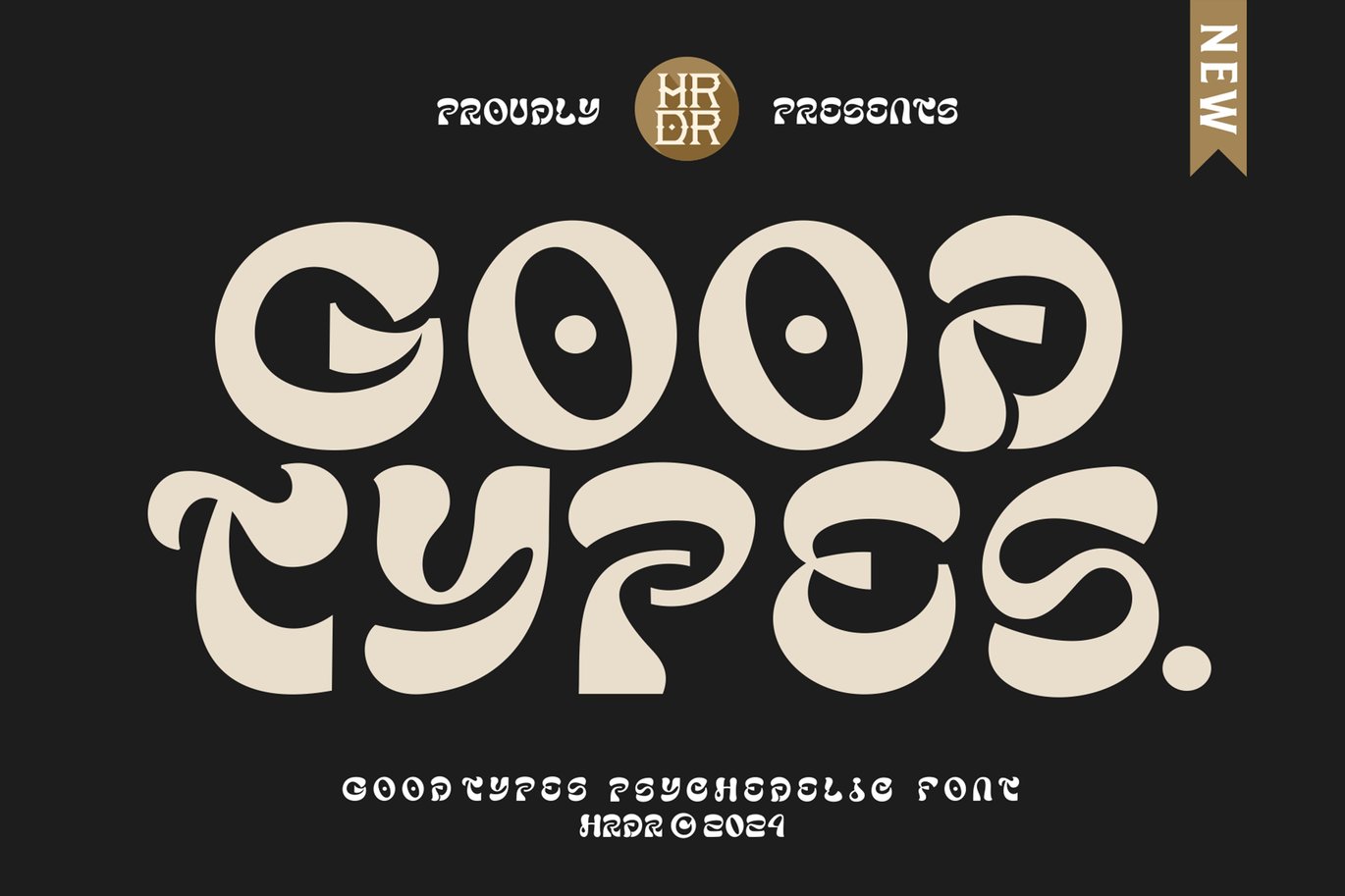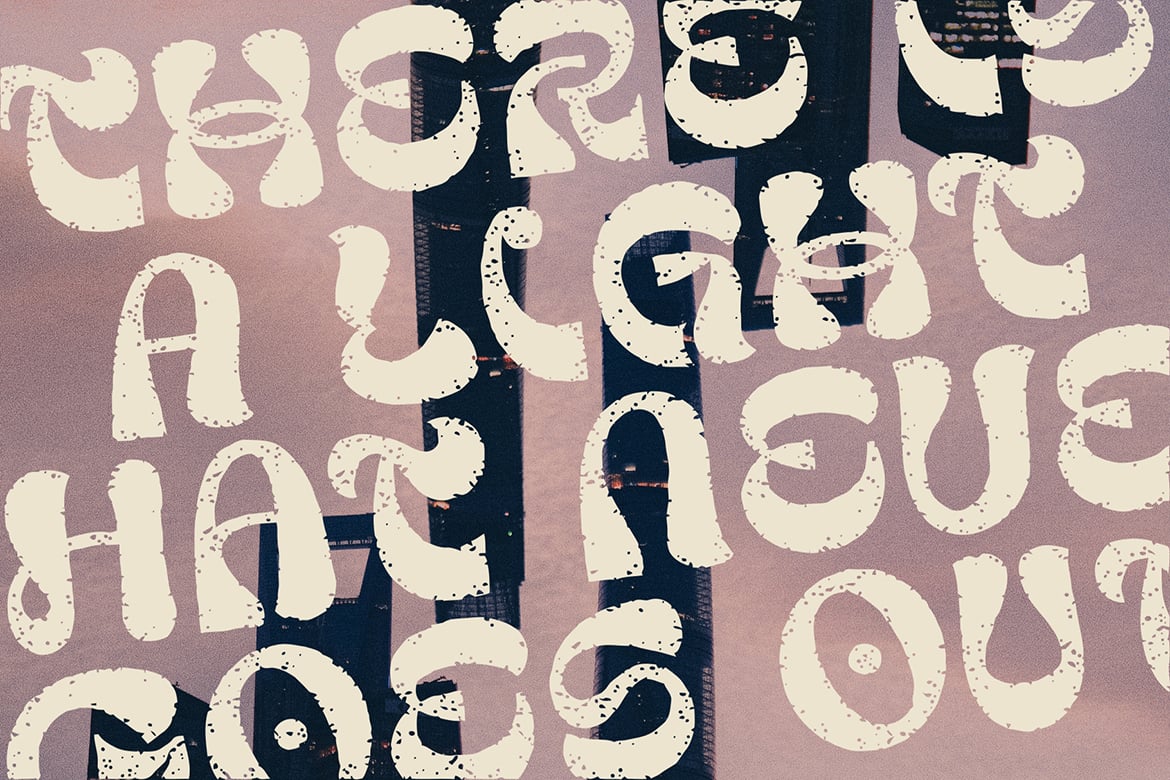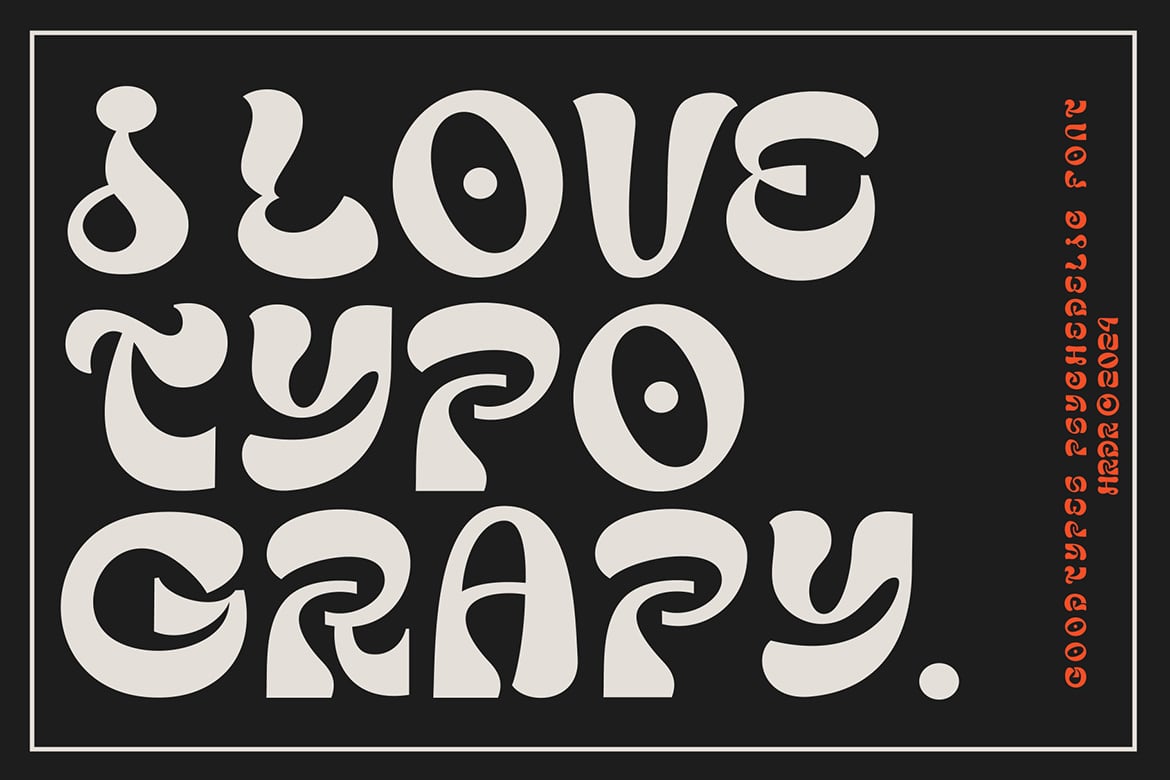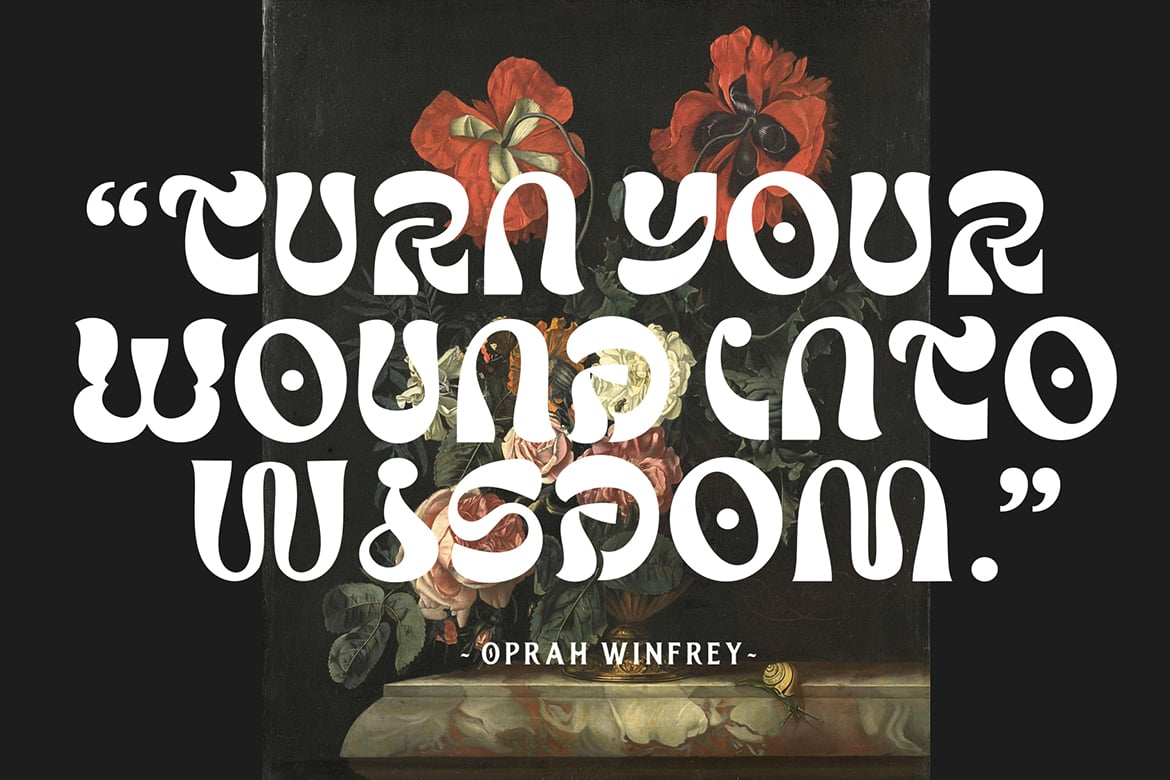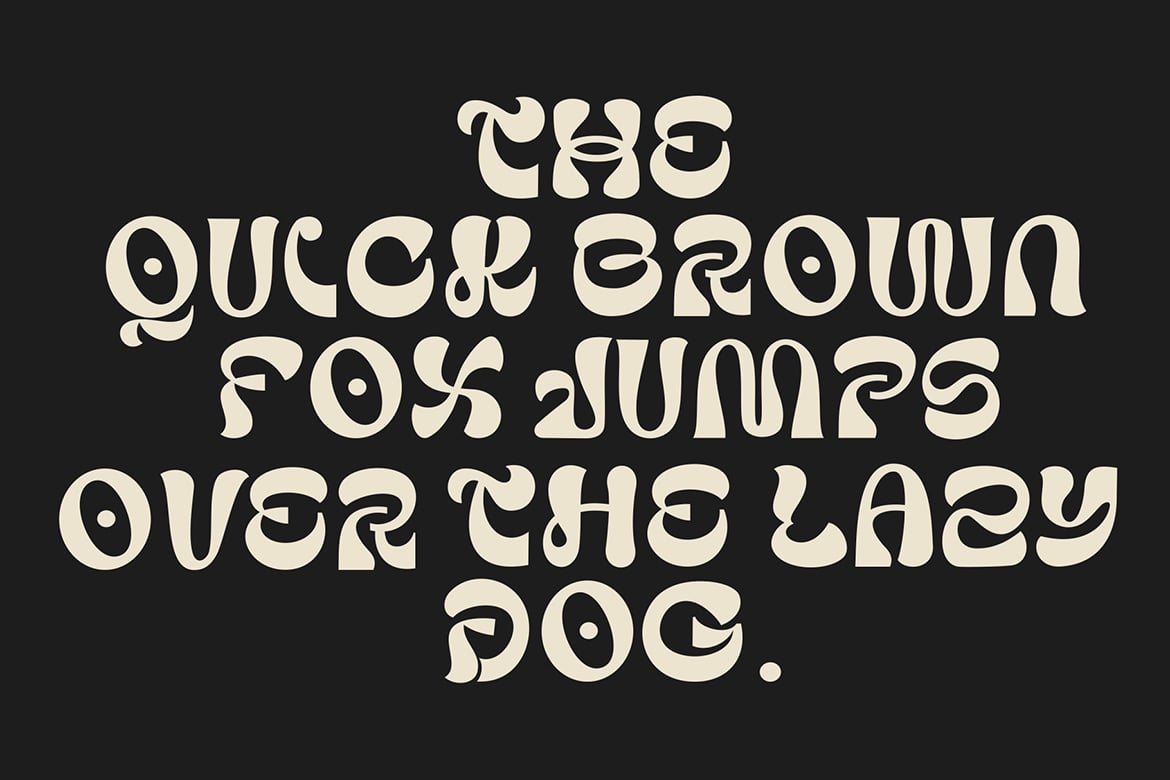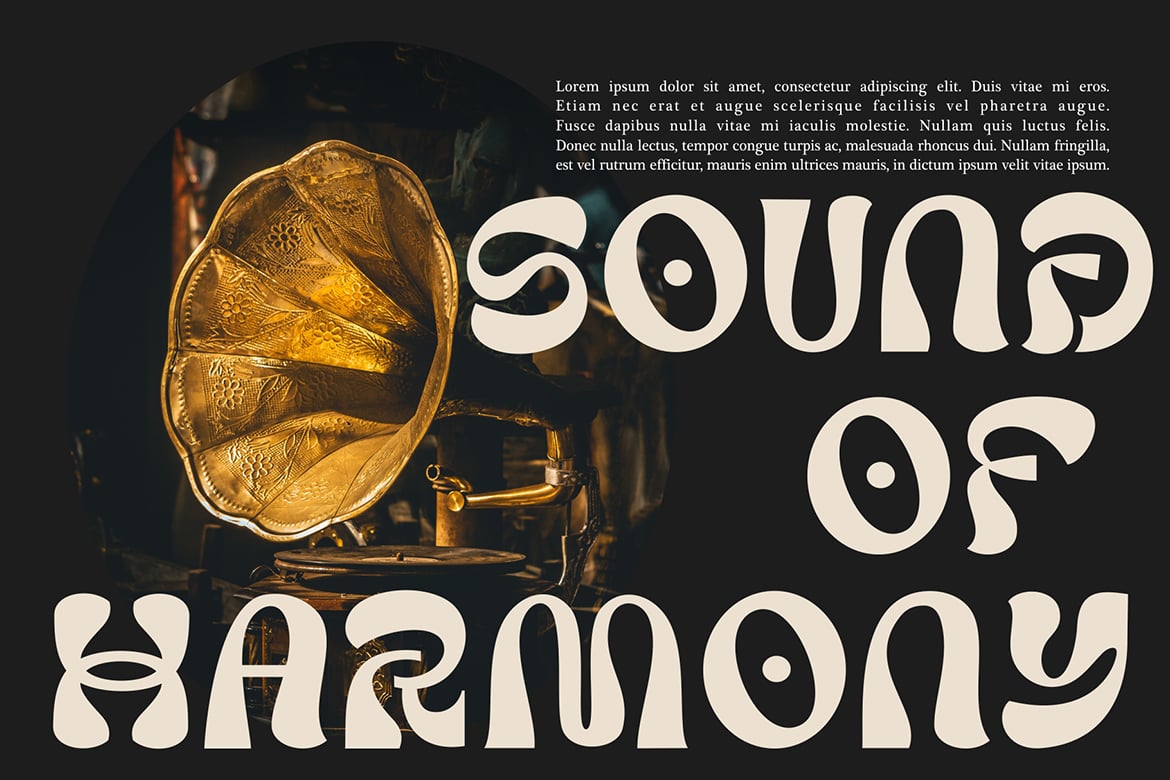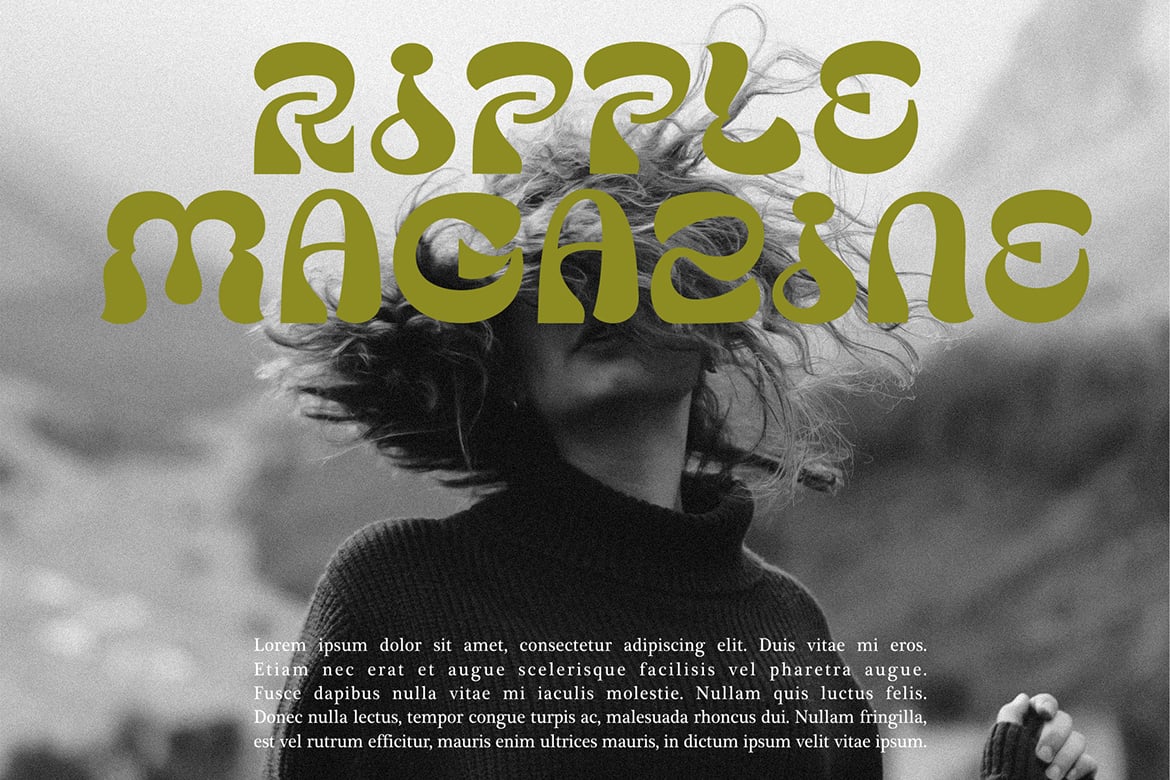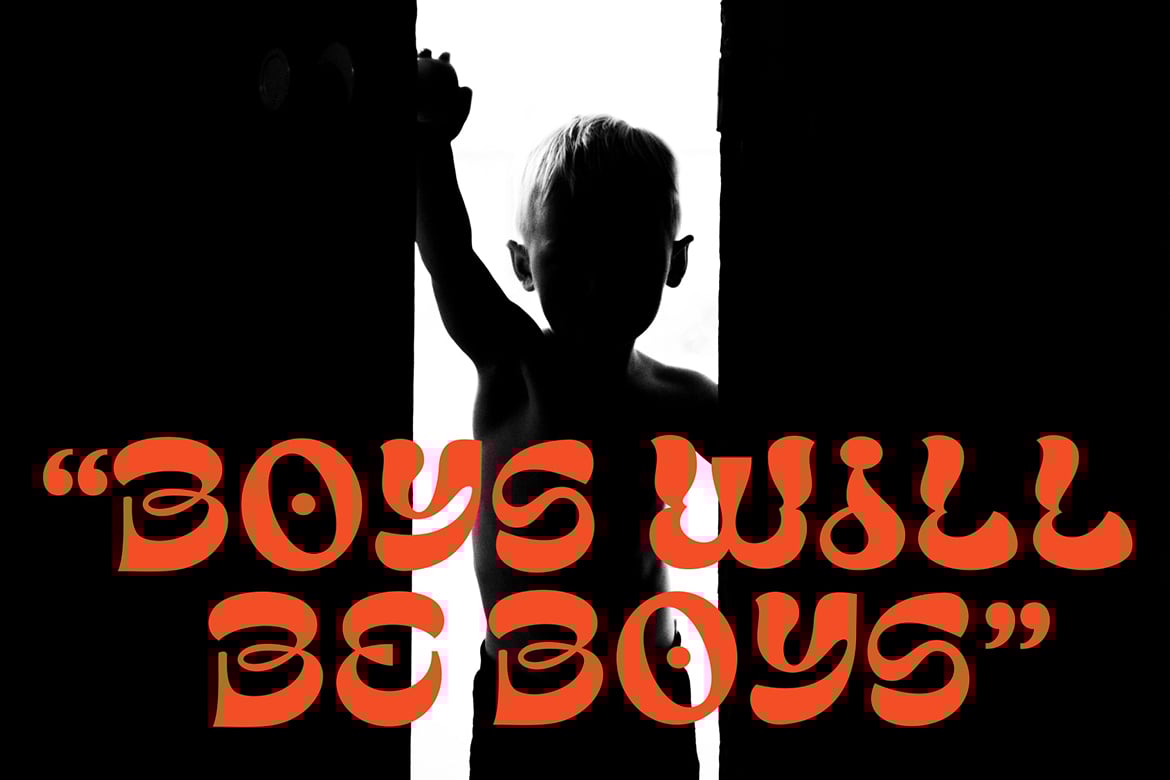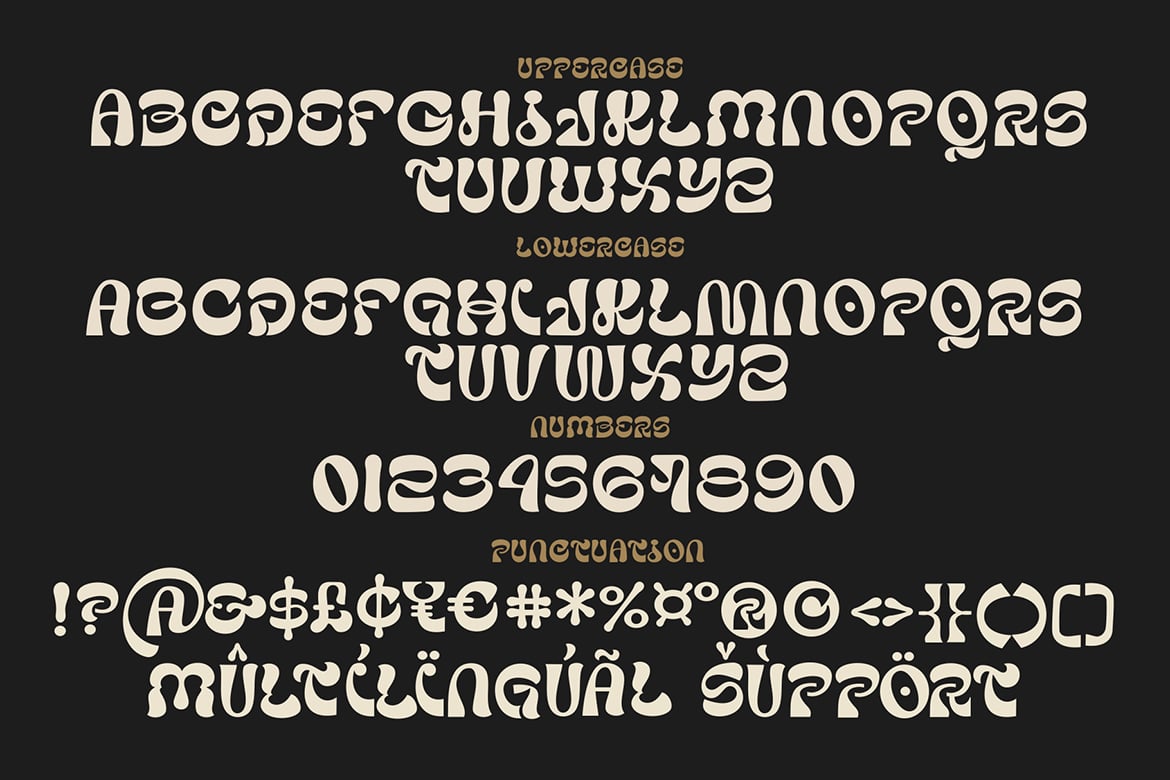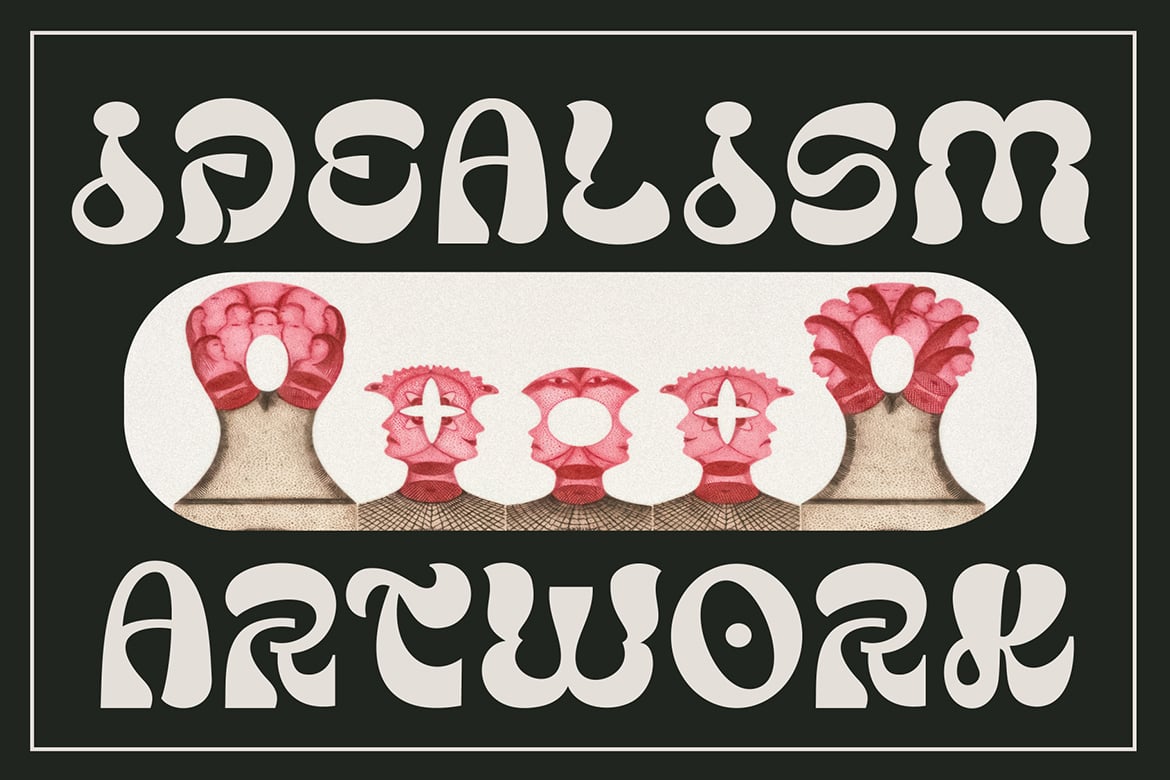
Good Types Font
Good Types is a psychedelic style inspired typeface. Unique tripped out lettering makes this font perfect for those band
poster, trippy logos, funky posters, quotes and more.
Font Features :
- numeric & Multilingual support